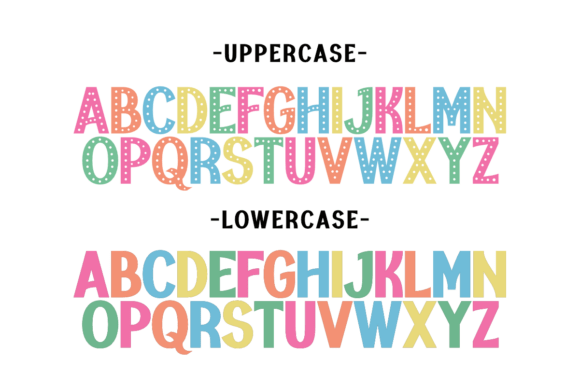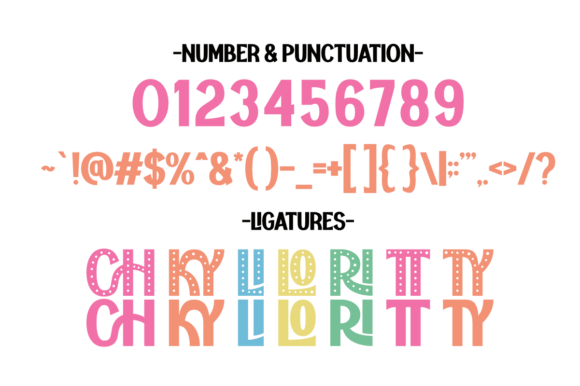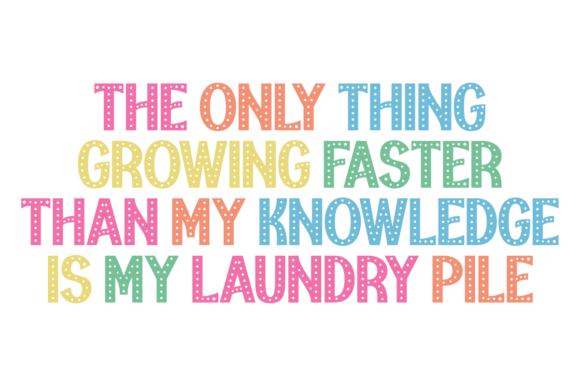
Introduction to Chunky Student Font
Chunky Student is a colorful, playful, and bold display font designed to bring joy and creativity to your back-to-school projects.
With its chunky letterforms and dotted texture, this font is perfect for kid-friendly designs, teacher resources, and school-themed merch Whether you’re designing vibrant classroom signs, student name tags, cute lunchbox labels, or fun sublimation prints for t-shirts and tote bags, Chunky Student makes your designs pop with personality.
Key Features of Chunky Student Font
Why Choose Chunky Student Font?
Chunky Student Font offers exceptional quality and versatility, making it a valuable addition to your design toolkit. Whether you’re creating for personal projects or commercial use, Chunky Student Font delivers professional results.